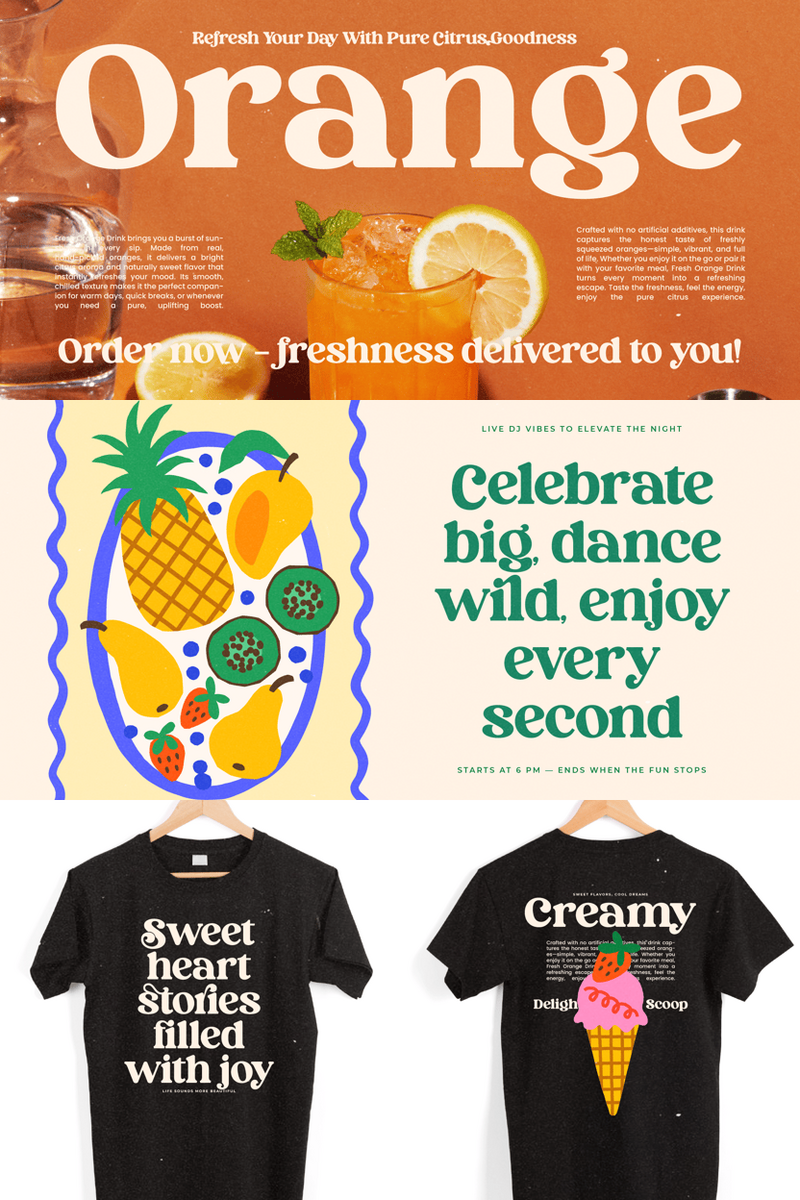
For Editorial & Blog Designers: How can Aroma Vintage define your brand's rebellious spirit and elevate your logo design with unmistakable visual impact?
Hey there, cutting-edge creative. Heard you were looking for a font that doesn't just sit pretty, but actually says something. Well, here I am, Aroma Vintage. No, I'm not your grandmother's cursive, and I'm definitely not another one of those 'safe bet' serifs. I’m the typographic equivalent of a leather jacket, well-worn and full of stories – the kind that haven’t been told before.
Think of me as your secret weapon for projects that refuse to blend in. I didn't come from a pristine grid; I emerged from the electric hum of underground zines, the raw energy of independent music, and the authentic scratch of a designer's pen late at night. My purpose? To give voice to the untamed, to the narratives that challenge the status quo, and to the brands that aren’t afraid to be themselves.
What makes Aroma Vintage special? It’s simple: I empower you to stop chasing trends and start setting them. You know that frustration when a design feels... nice, but lacks genuine punch? That's where I step in. My inherent edgy and rebellious attitude instantly infuses your work with a distinctive character. I solve the challenge of bland visual communication by bringing an almost tactile sense of authenticity and grit, making your audience feel, not just see. I'm not just a font; I'm a conversation starter, a head-turner, a declaration.
Aroma Vintage: The Scent of Unconventional Stories.
So, where do I shine the brightest? Imagine me as the audacious headline for a thought-provoking blog post on a non-conformist lifestyle, or the striking title for an editorial spread on emerging subcultures. I’m perfect for creating those unforgettable logo designs for craft breweries with a defiant spirit, independent fashion labels, tattoo studios, or any brand that champions individuality. Think bold magazine covers for indie publications, impactful social media campaigns for disruptive startups, or even distinctive merchandise designs that resonate with a fiercely loyal audience. With Aroma Vintage, your content won't just be read; it will be felt.